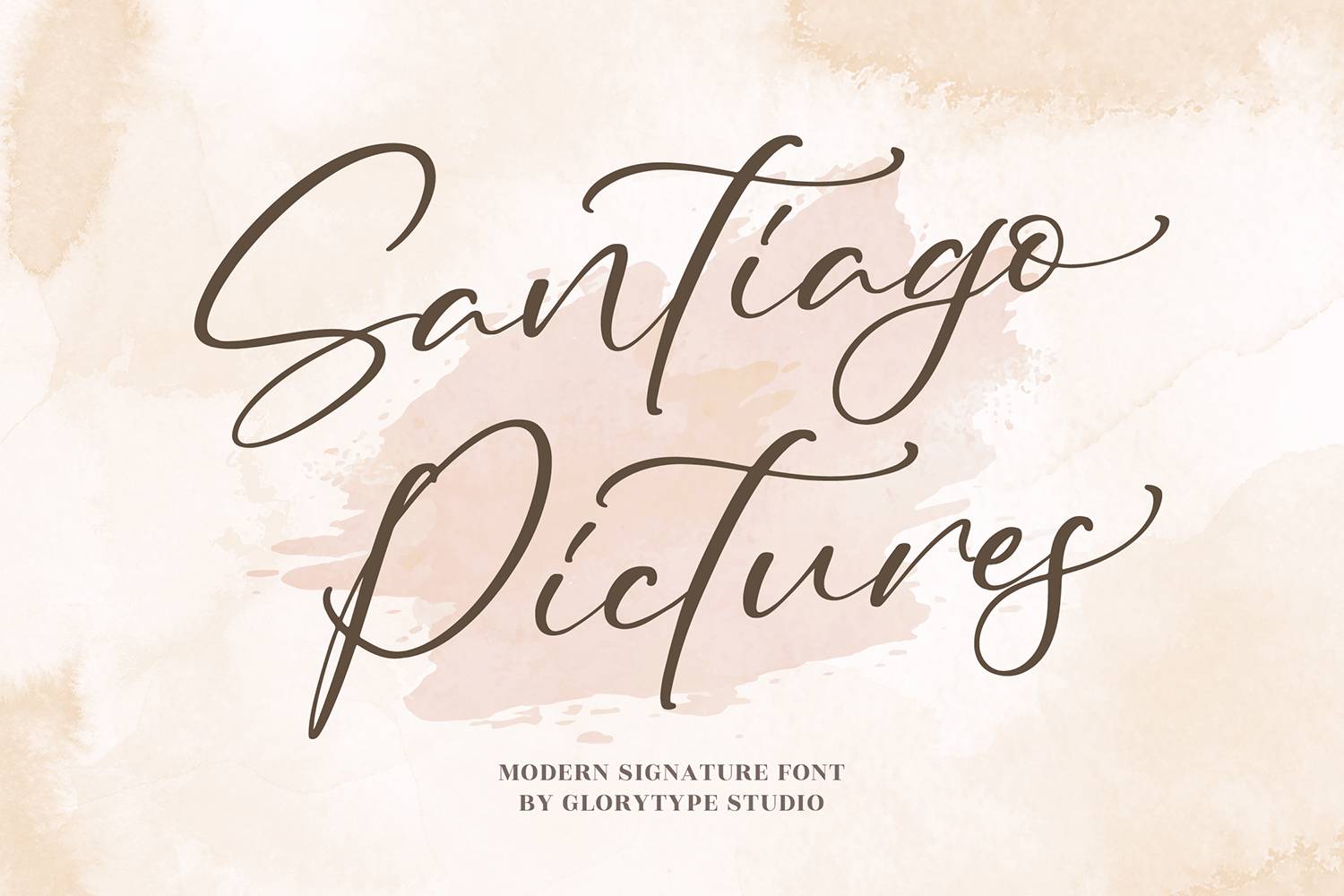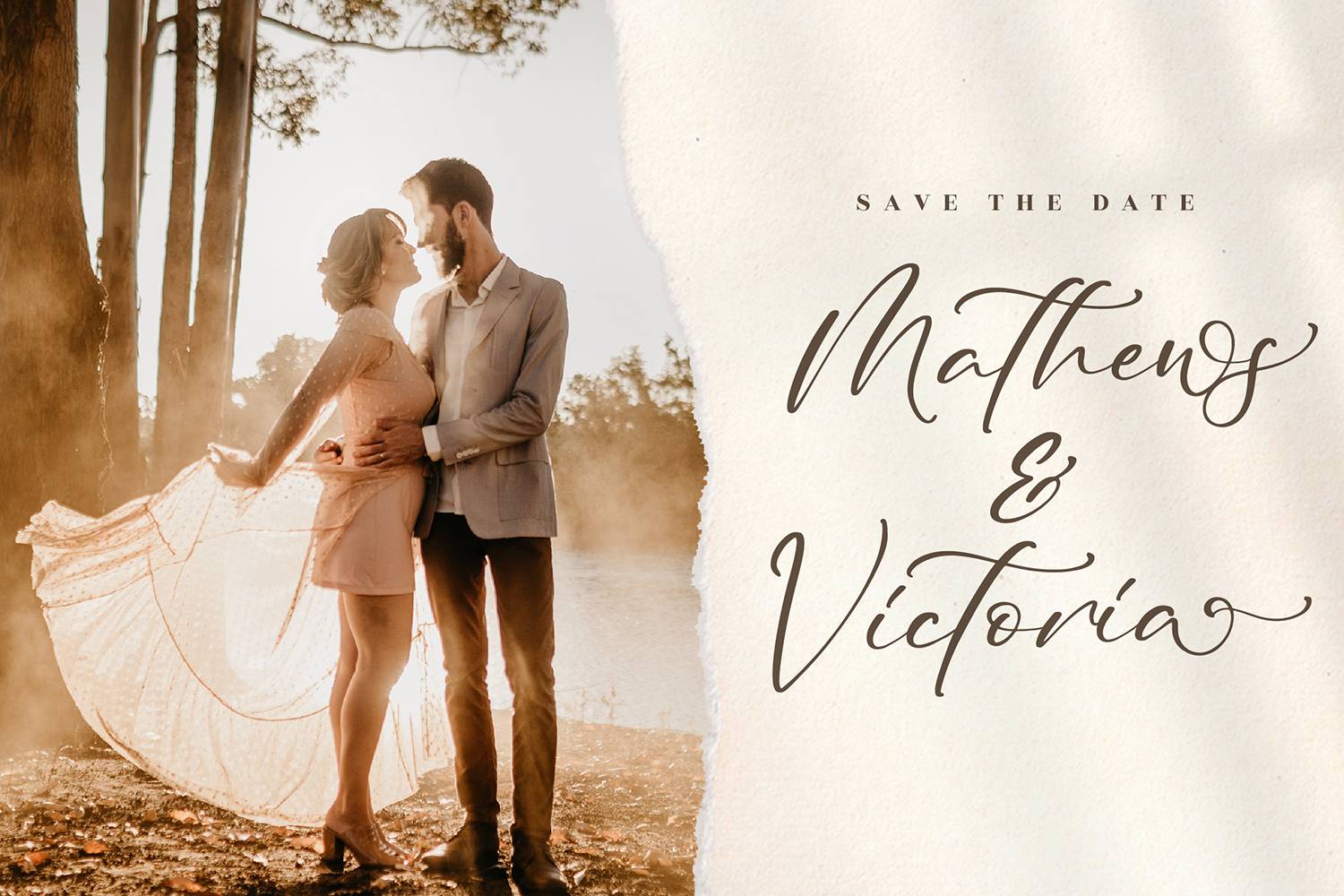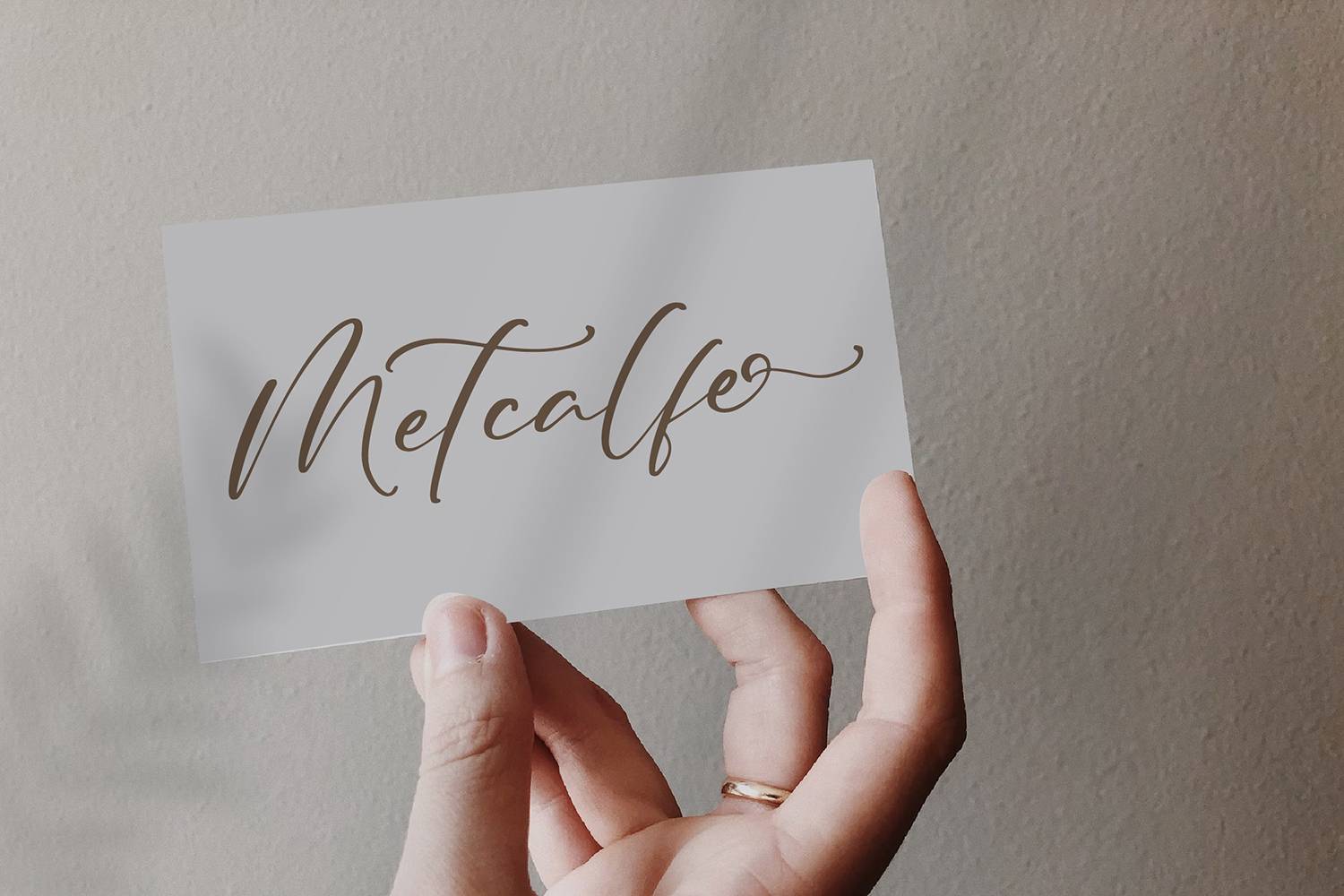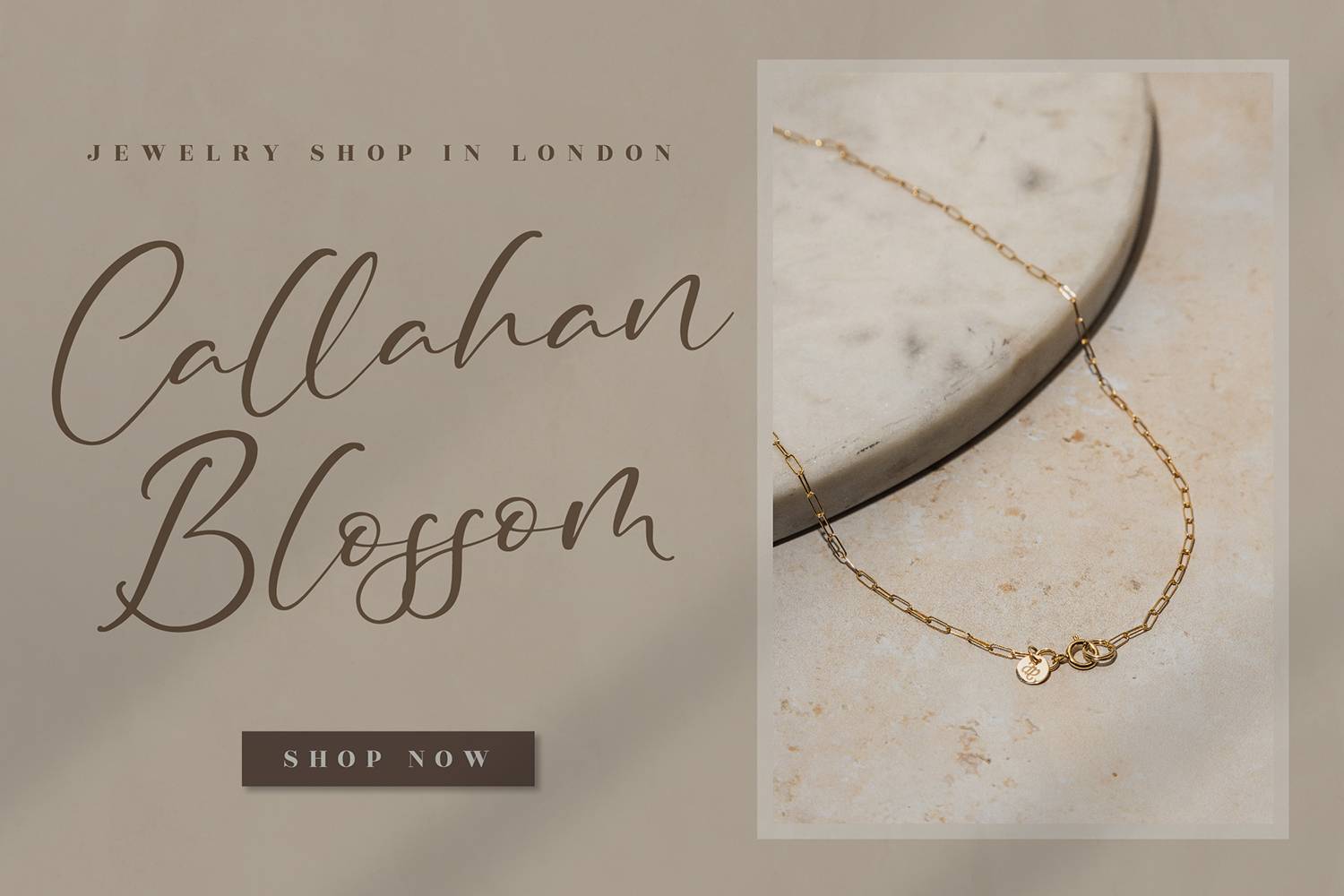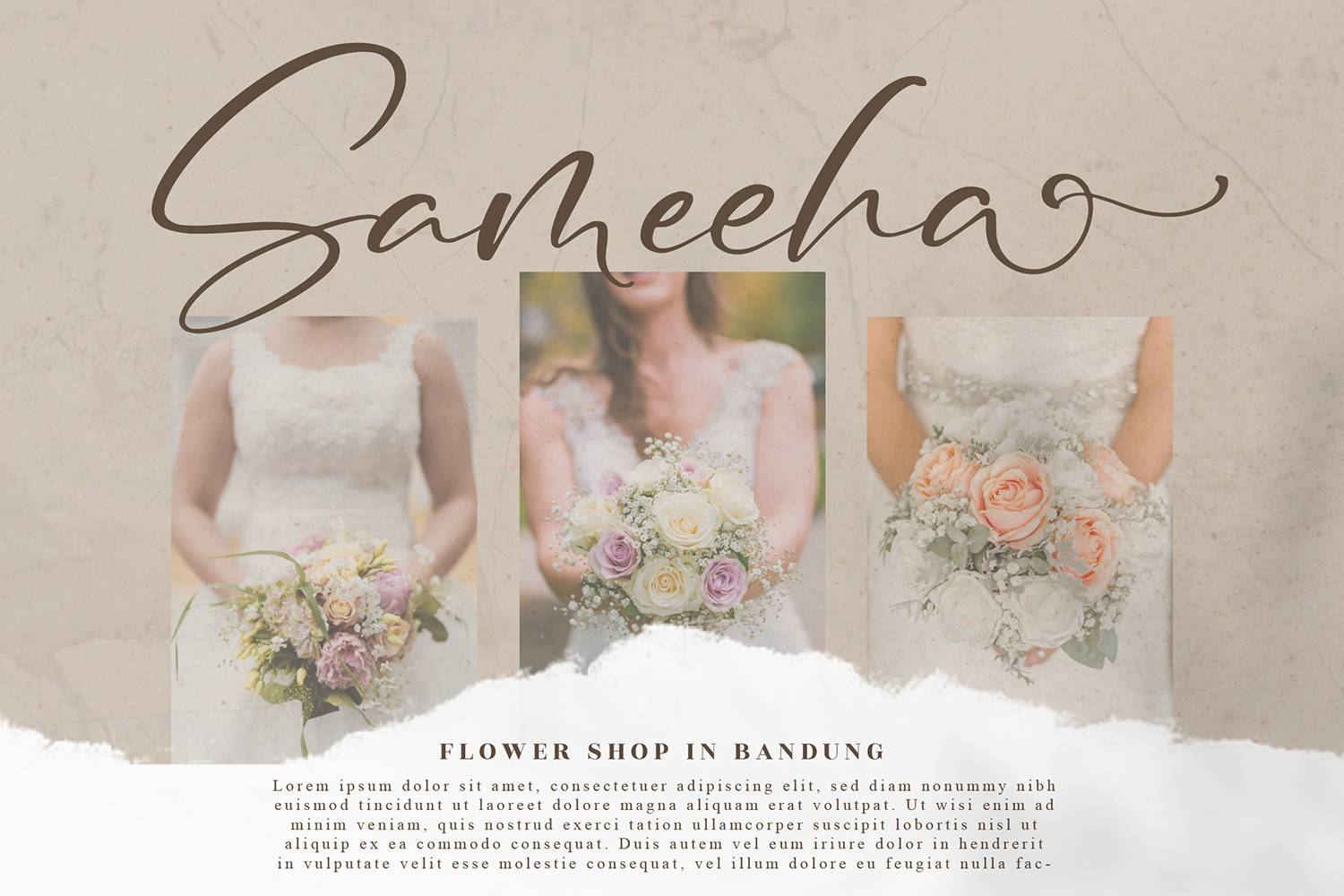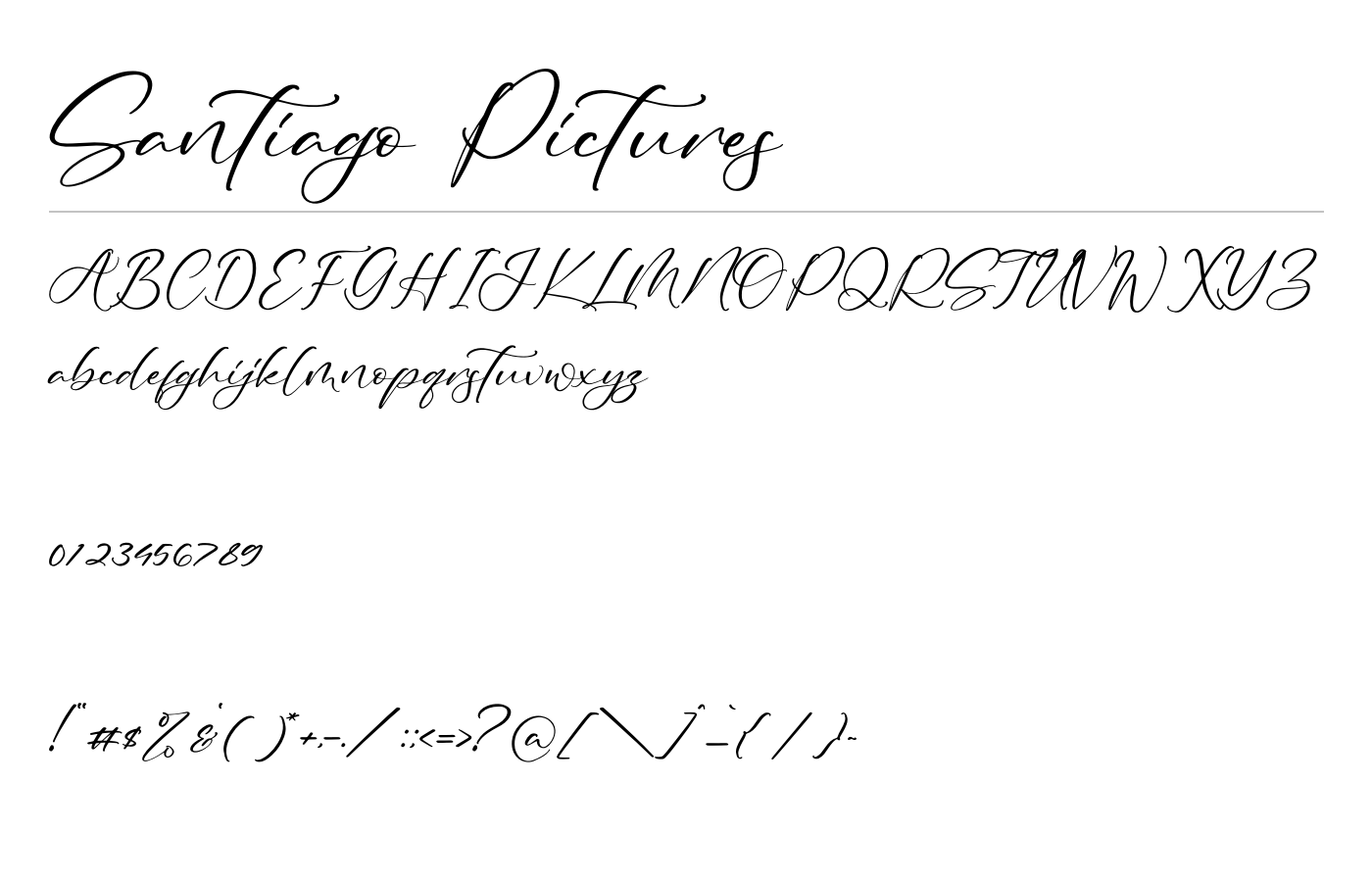
Santiago Pictures is an elegant script font with a delicate, handwritten feel that combines smooth, flowing strokes and subtle variations in line weight. Its refined, airy letterforms make it ideal for luxury branding, invitations, and stylish logos where a sense of sophistication and personality is desired. This font works best in creative projects that call for a romantic, graceful touch, especially in headlines and decorative uses.
Santiago Pictures Font
About Santiago Pictures Font